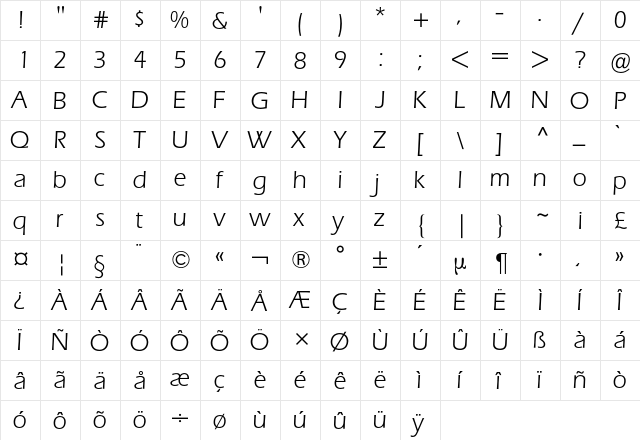
Eras BQ Regular
Design Context for Eras BQ Typeface
Eras BQ offers clean, dependable letterforms without strong stylistic allegiance, making it a practical choice for designers who need flexibility.